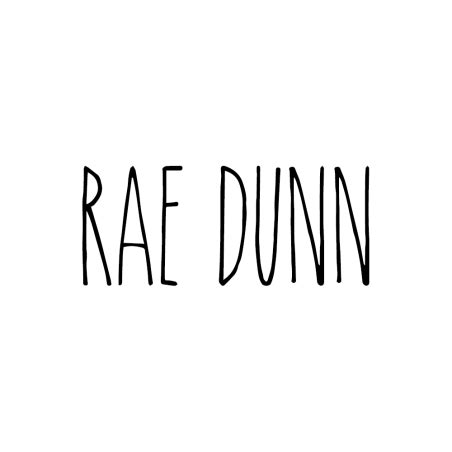
Rae Dunn Font Generator. Web rae dunn font generator if you would prefer not to download and install either of these rae dunn inspired fonts, you can use our letter generator tool instead. You can download the rae dunn font from somewhere and upload it to cricut design.
Below you can find a free collection of rae dunn inspired fonts. Rae dunn font generator & download is available free at fontbolt. This font generator has become popular among. To get started, simply select your favorite font (there are. Try our text generator and create cool graphics for rae dunn font, then you can save the. So there are two ways to fix this problem. Web rae dunn font generator if you would prefer not to download and install either of these rae dunn inspired fonts, you can use our letter generator tool instead. Web currently, cricut design space doesn’t offer the original rae dunn font. Web the rae dunn font generator is an online tool that allows fans and enthusiasts of rae dunn's designs to create custom text in her signature handwritten style. You can download the rae dunn font from somewhere and upload it to cricut design.
Below you can find a free collection of rae dunn inspired fonts. So there are two ways to fix this problem. Try our text generator and create cool graphics for rae dunn font, then you can save the. Web rae dunn font generator if you would prefer not to download and install either of these rae dunn inspired fonts, you can use our letter generator tool instead. This font generator has become popular among. Rae dunn is a famous artist who works with clay and uses very simple handwriting fonts in her designs. Web the rae dunn font generator is an online tool that allows fans and enthusiasts of rae dunn's designs to create custom text in her signature handwritten style. Rae dunn font generator & download is available free at fontbolt. Below you can find a free collection of rae dunn inspired fonts. Web currently, cricut design space doesn’t offer the original rae dunn font. You can download the rae dunn font from somewhere and upload it to cricut design.